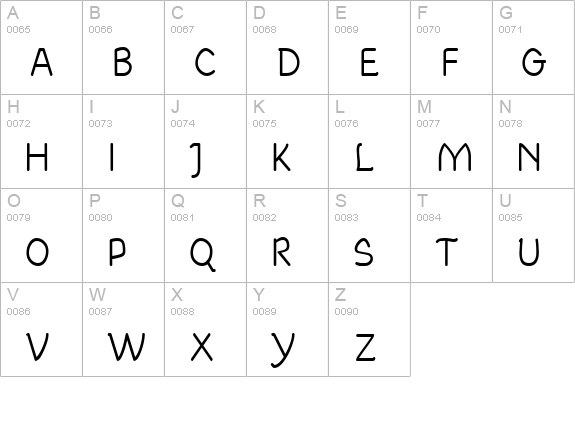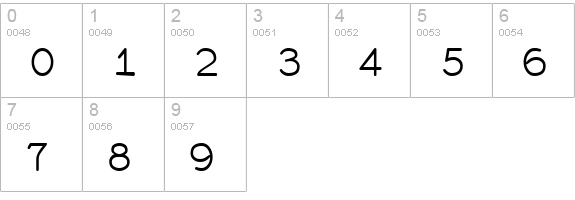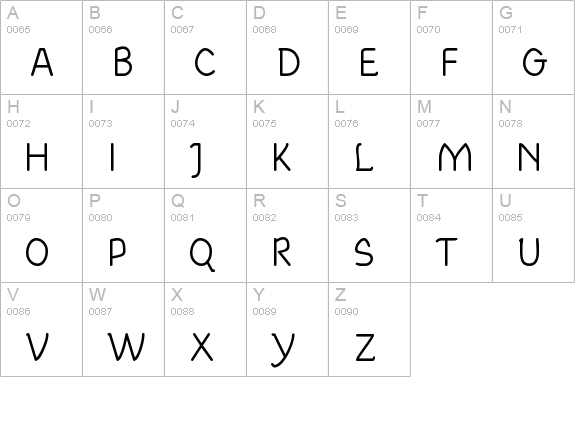
Skjoeld Font Details
Skjoeld font is a modern and elegant typeface that exudes sophistication and creativity. With its clean lines and stylish curves, Skjoeld is perfect for adding a touch of class to any design project. This versatile font is ideal for a wide range of applications, from branding and advertising to packaging and web design. What's even better is that Skjoeld font is completely free to download at FontsMarket.com. This means you can easily access this beautiful font and use it in your projects without any cost. Whether you're a designer looking to elevate your work or a business owner wanting to enhance your brand, Skjoeld font is a fantastic choice that won't break the bank. Download it today and start creating stunning designs with this amazing typeface!